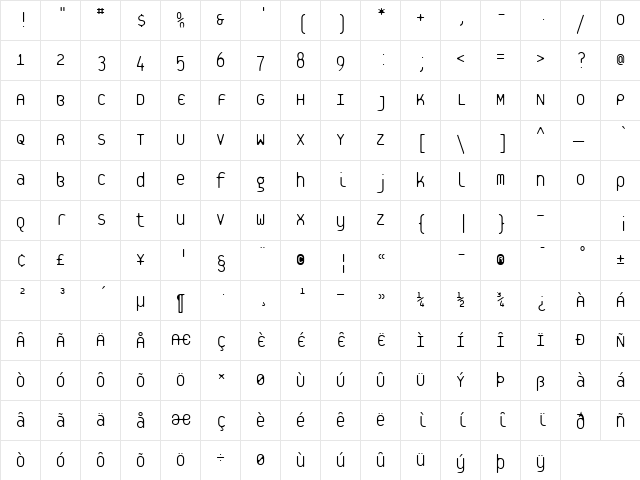
PlateletThin Regular
Design Context for PlateletThin Typeface
PlateletThin offers clean, dependable letterforms without strong stylistic allegiance, making it a practical choice for designers who need flexibility. The delicate stroke weight brings airiness and refinement to layouts.
Pro Tip: Pair PlateletThin with a font of contrasting weight or personality to build a more expressive typographic hierarchy.